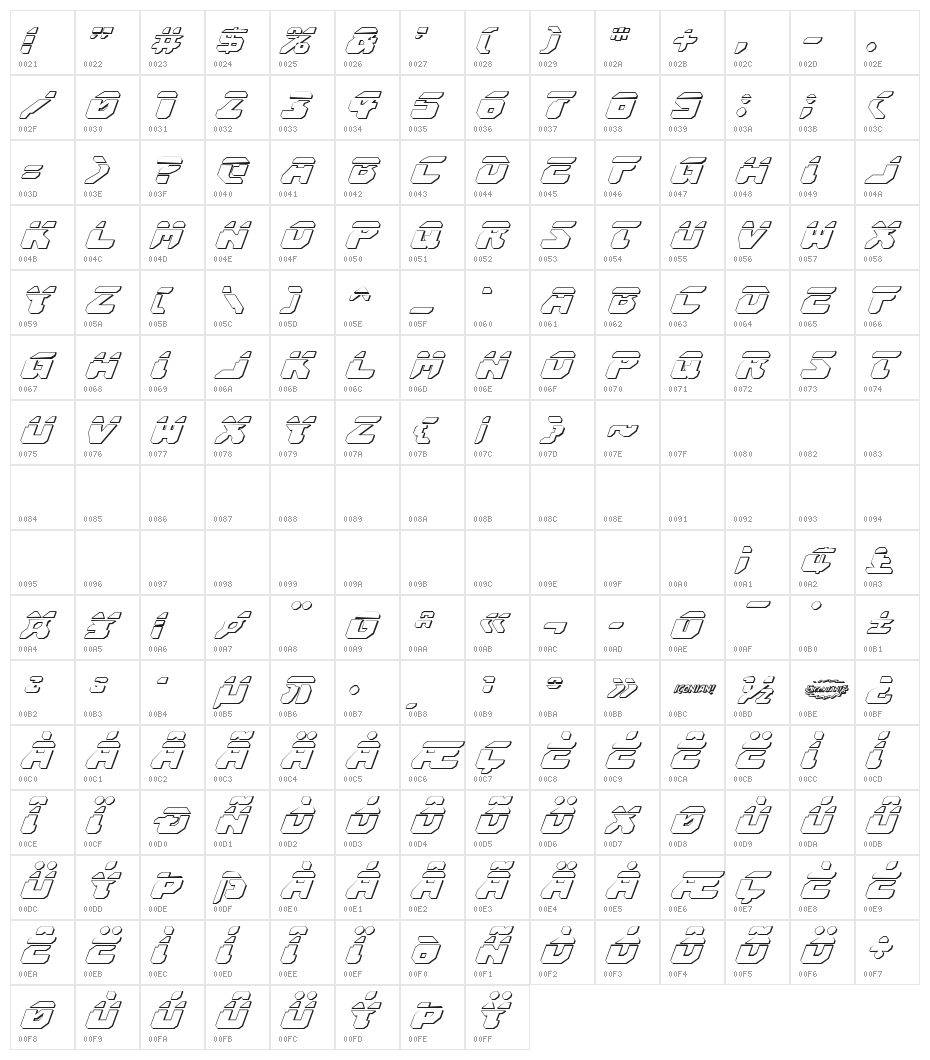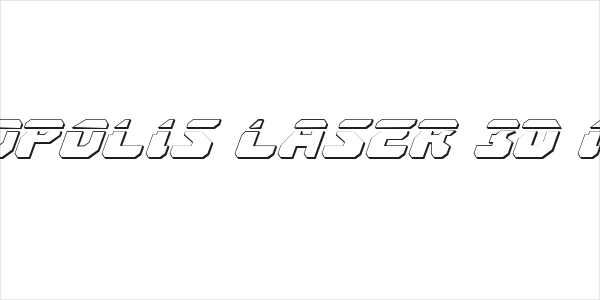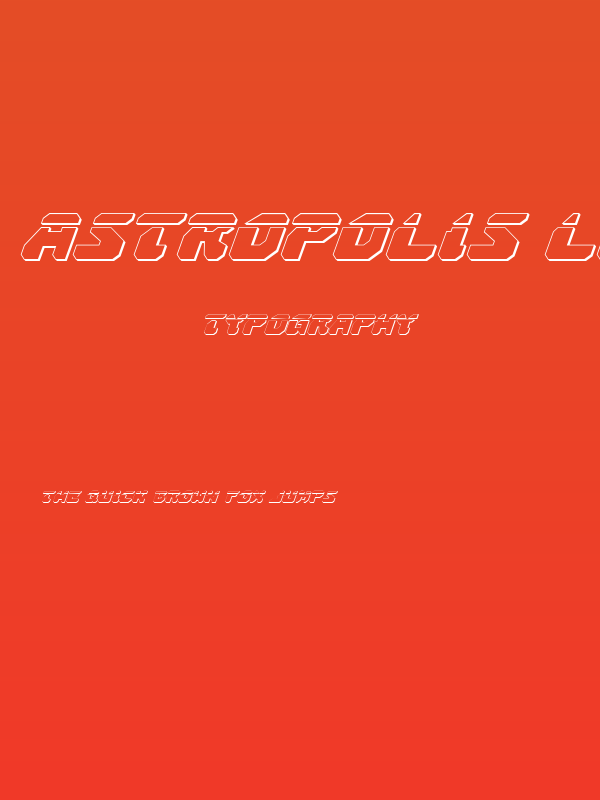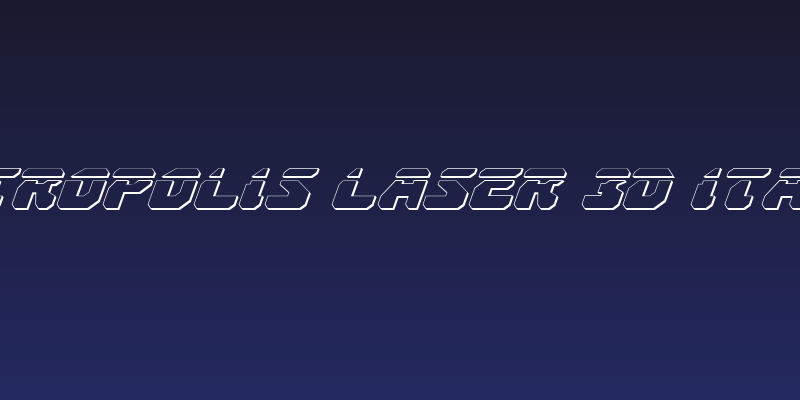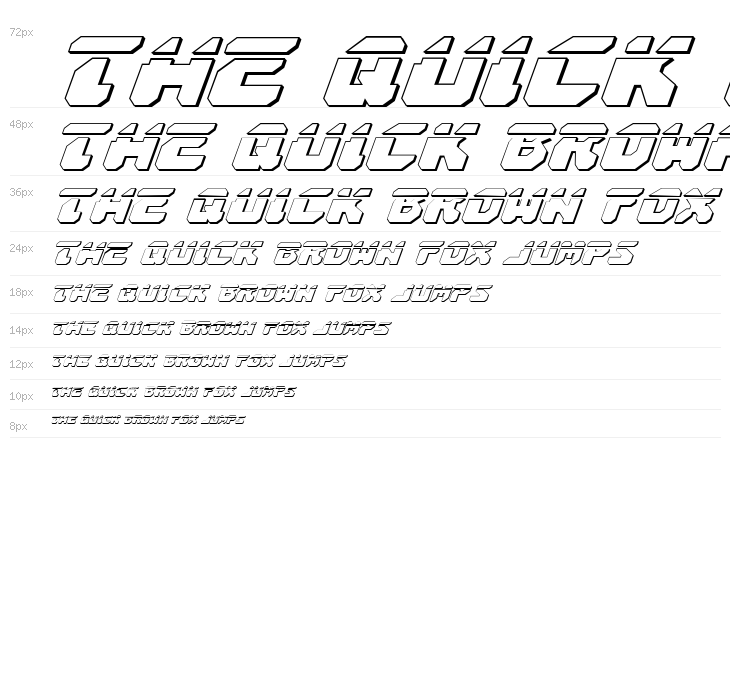
Astropolis Laser 3D Italic Font
Astropolis Laser 3D Italic Description
This font features a futuristic and geometric design, characterized by its bold, three-dimensional appearance. Each character is outlined with a distinct, angular style that gives it a laser-cut look, reminiscent of sci-fi aesthetics. The italic slant adds a dynamic and forward-moving impression, enhancing its modern appeal. The uppercase and lowercase letters maintain a consistent style, with numbers and special characters following the same design principles. This font is ideal for projects that require a strong, technological feel, such as video game titles, tech branding, or sci-fi themed events.
| Proposed Projects | Ideal for video game titles, tech branding, sci-fi themed events, and futuristic posters. |